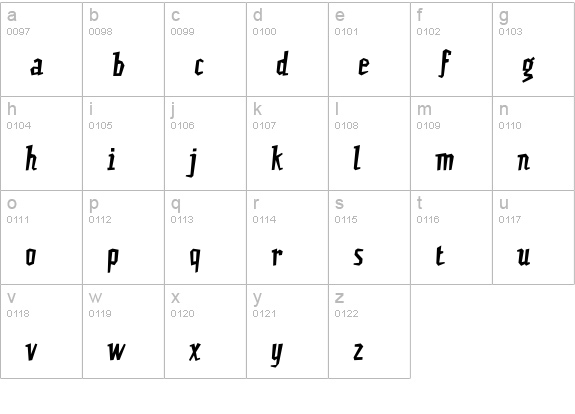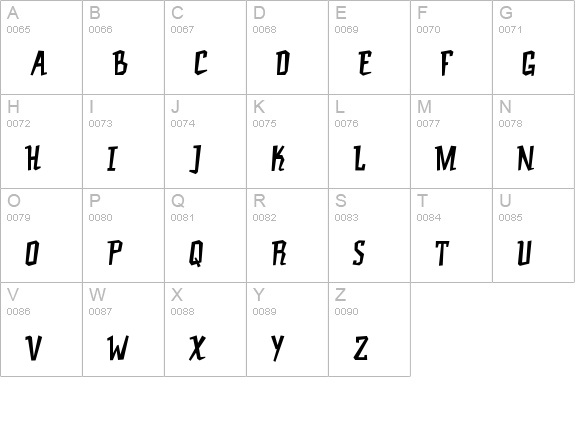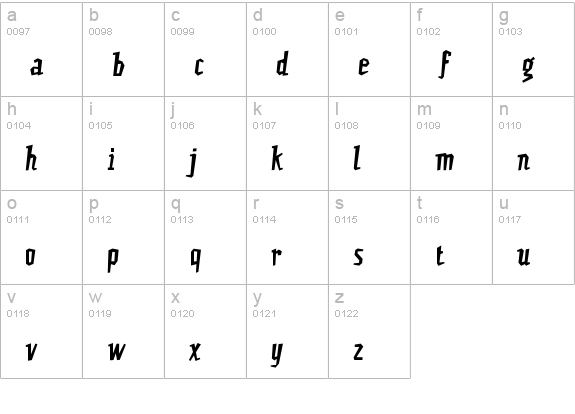
JacqueRegular Font Details
JacqueRegular font is a stunning display typeface that exudes elegance and sophistication. With its clean lines and graceful curves, this font is perfect for adding a touch of class to any design project. Whether you're creating a logo, branding materials, or a stylish headline, JacqueRegular is sure to impress. What makes JacqueRegular even more appealing is that it is available for free! That's right, this remarkable font can be freely downloaded at FontsMarket.com. This means that you can enhance your designs without breaking the bank. Whether you're a professional designer or a hobbyist, having access to high-quality fonts without having to spend a dime is truly a gift. With JacqueRegular, you can explore endless creative possibilities. Its versatility allows it to be used in a variety of contexts, from fashion magazines to wedding invitations. The clarity of this font ensures that your message will be conveyed with utmost clarity and legibility. The attention to detail in JacqueRegular is truly remarkable. Each character has been meticulously crafted to ensure a seamless flow and balance. The combination of sharp edges and soft curves creates a harmonious balance that is pleasing to the eye. In addition to its aesthetic appeal, JacqueRegular also offers practicality. Its wide range of glyphs and characters make it suitable for multiple languages, allowing you to reach a global audience. Whether you need to include accents or special characters, JacqueRegular has you covered. So why wait? Enhance your designs with the captivating beauty of JacqueRegular. Download it for free at FontsMarket.com and unlock a world of creative possibilities. Whether you're a professional designer or a beginner, this font is sure to elevate your projects to new heights. Don't miss out on this incredible opportunity to have access to a high-quality font without spending a penny. Get JacqueRegular today and let your creativity soar.